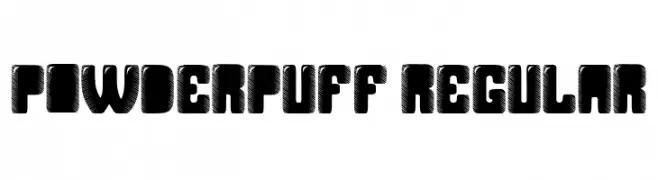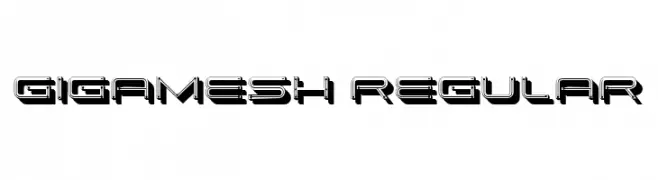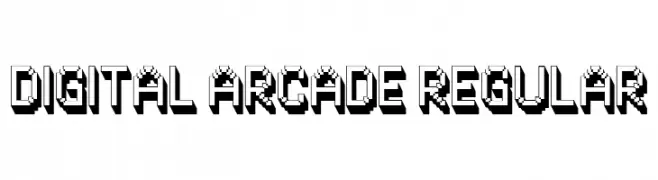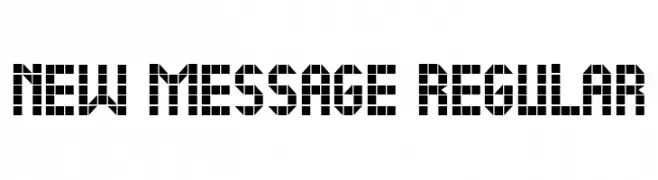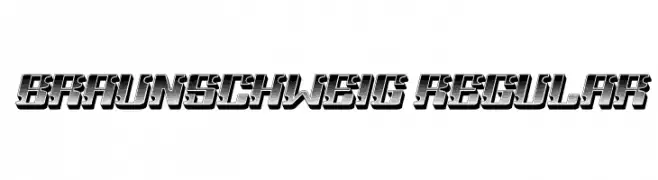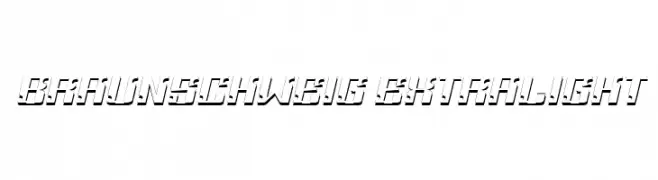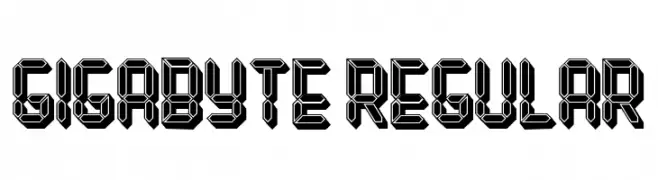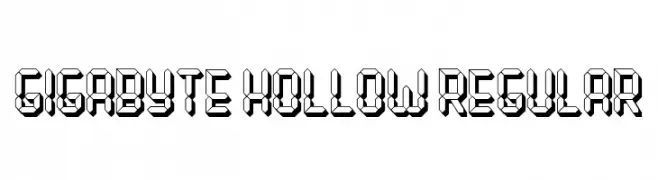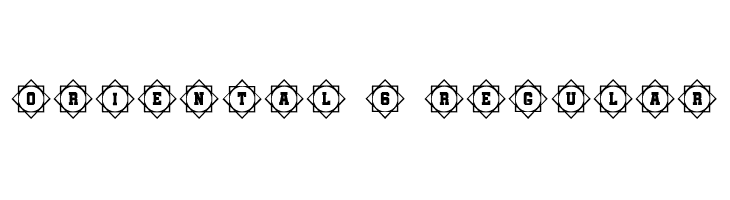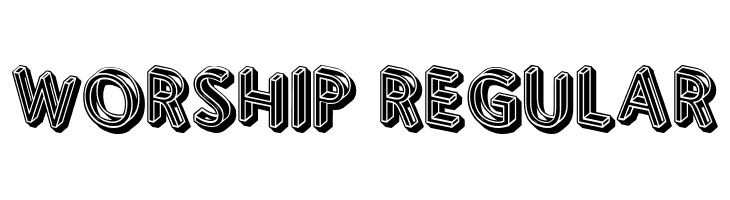
A bold, playful font with a 3D effect created by diagonal hatching.
A bold, futuristic font with geometric, three-dimensional letterforms.
A bold, 3D pixelated font with a retro arcade game aesthetic.
A bold, geometric font with a pixelated, digital appearance.
A bold, retro 3D font with a dotted texture and shadow effect.
A futuristic, industrial-inspired font with bold outlines and mechanical detailing.
A bold, decorative font with a 3D effect and diagonal line texture.
A modern, geometric sans-serif font with clean lines and balanced spacing.
A bold, geometric font with a futuristic, digital aesthetic.
A bold, geometric font with a hollow, three-dimensional appearance.